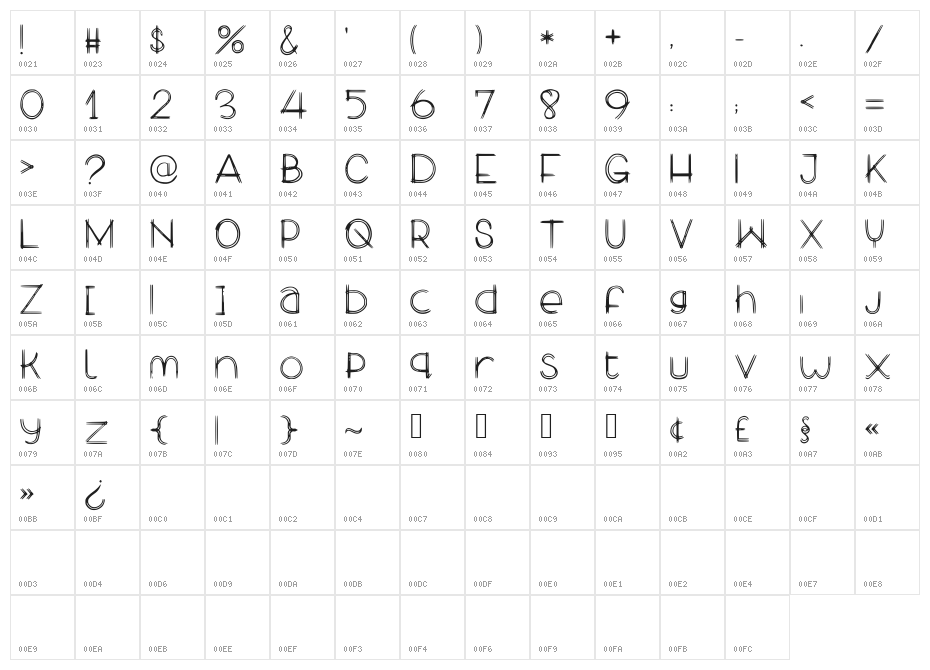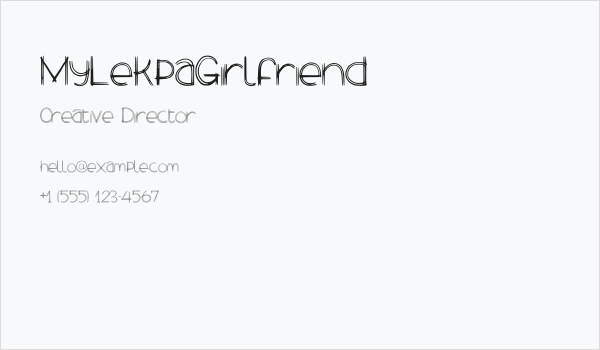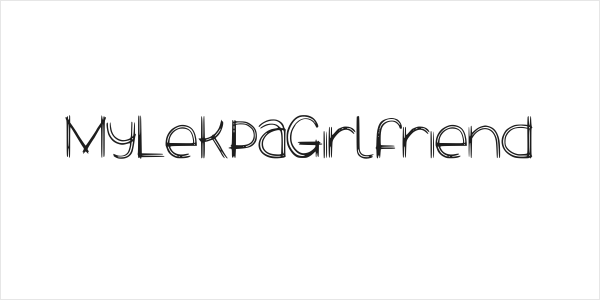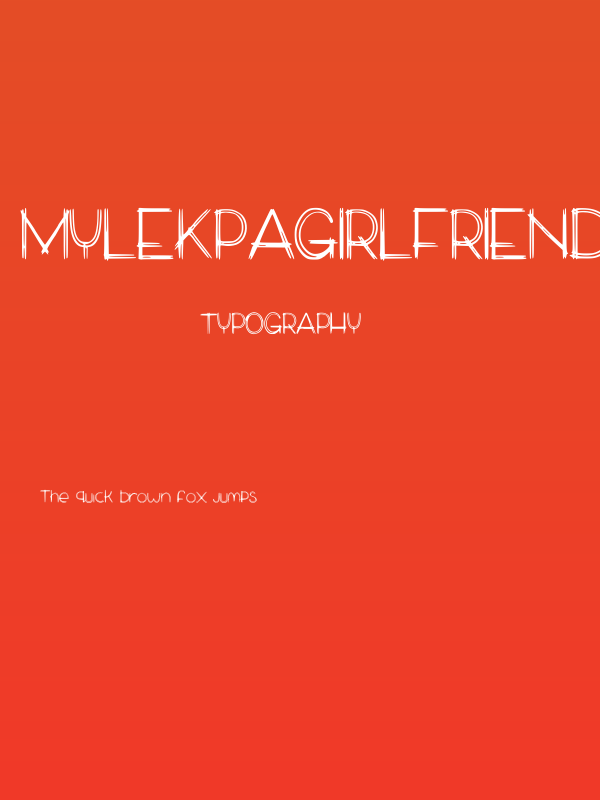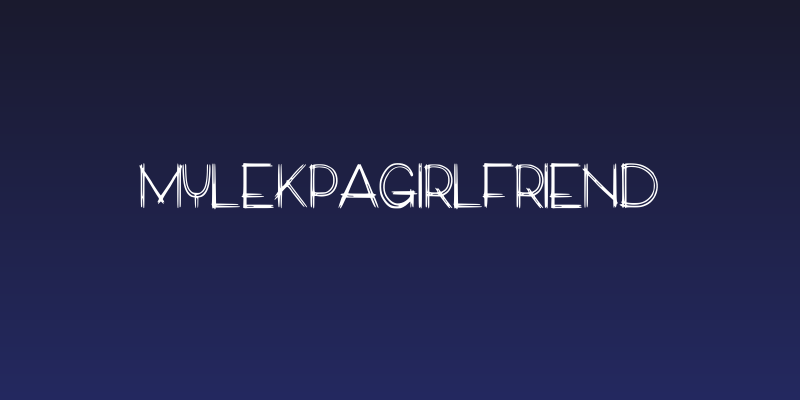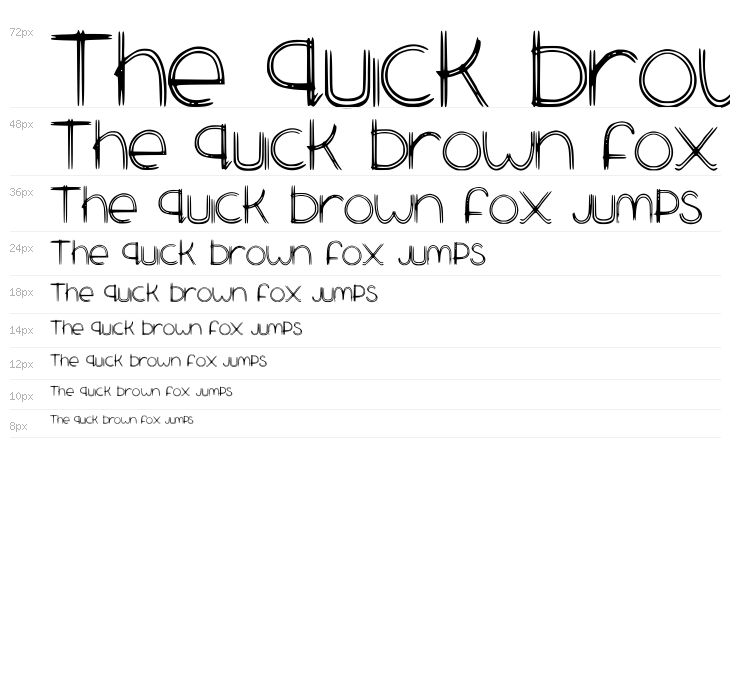
MyLekpaGirlfriend Font
MyLekpaGirlfriend Description
This font features a unique and artistic style characterized by its hand-drawn appearance. Each letter is composed of multiple overlapping strokes, creating a sketch-like effect that adds a sense of dynamism and creativity. The uppercase and lowercase letters maintain a consistent style, with rounded edges and a playful, informal look. The numerals and special characters follow the same design principles, ensuring a cohesive appearance across all glyphs. This font's distinctive style makes it stand out, offering a fresh and modern take on handwritten typography.
| Overall Style | Modern, Artistic |
| Use Case | Logos, Posters, Creative Branding |
| Proposed Projects | Ideal for creative projects such as posters, album covers, and artistic branding materials. |